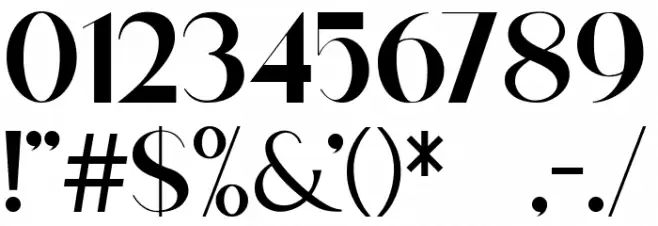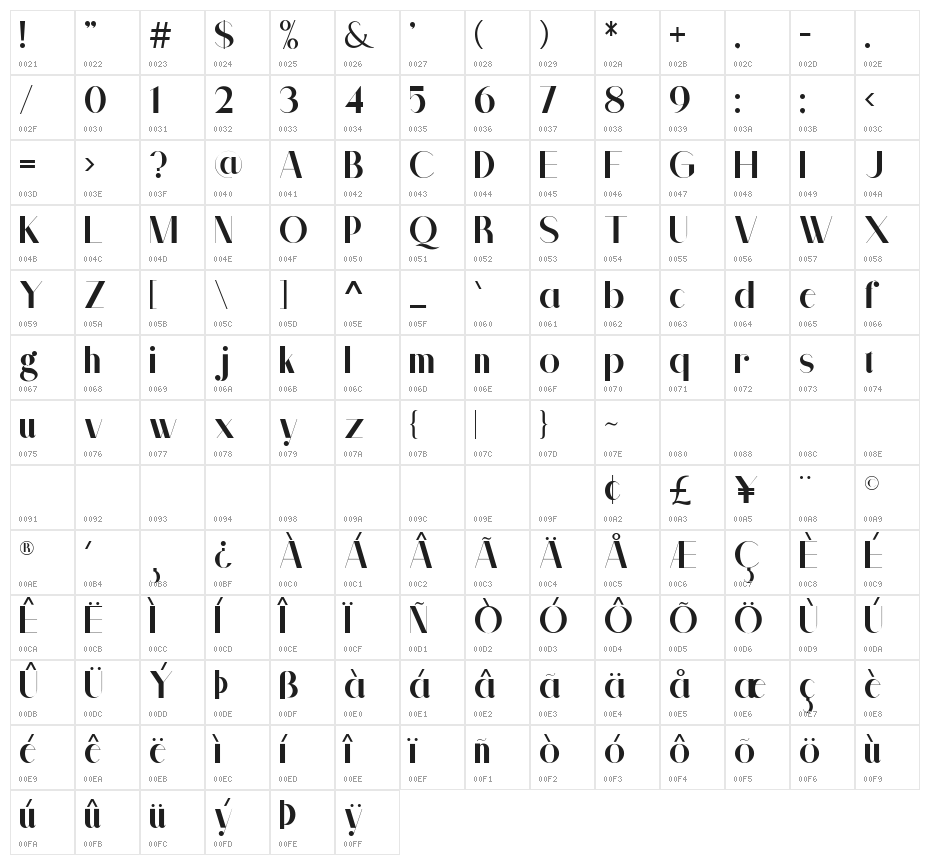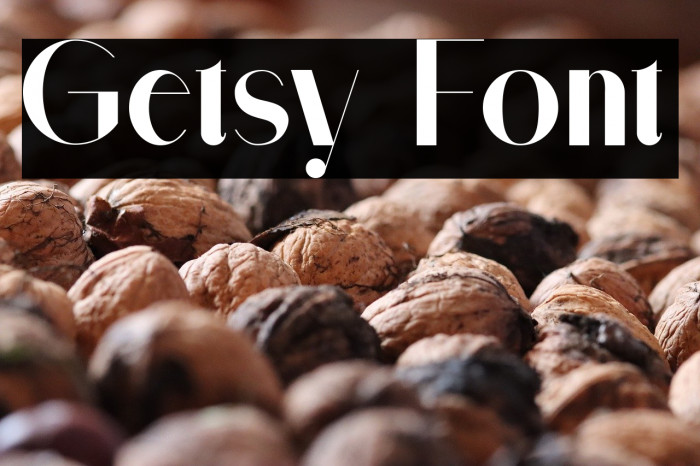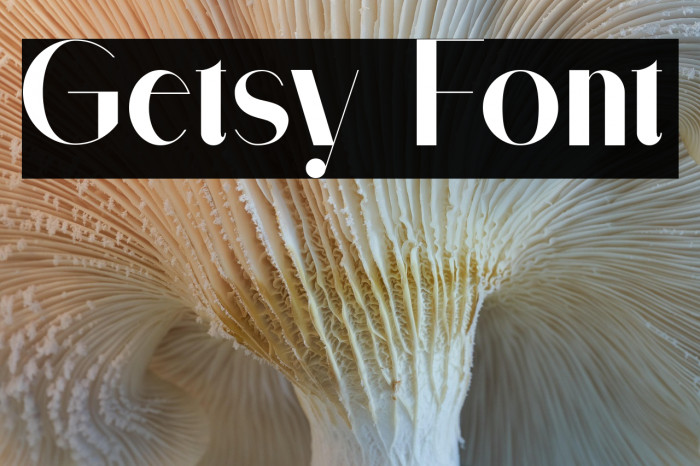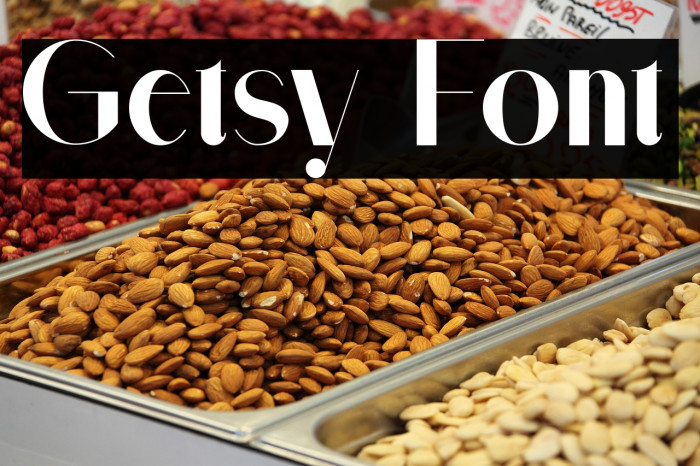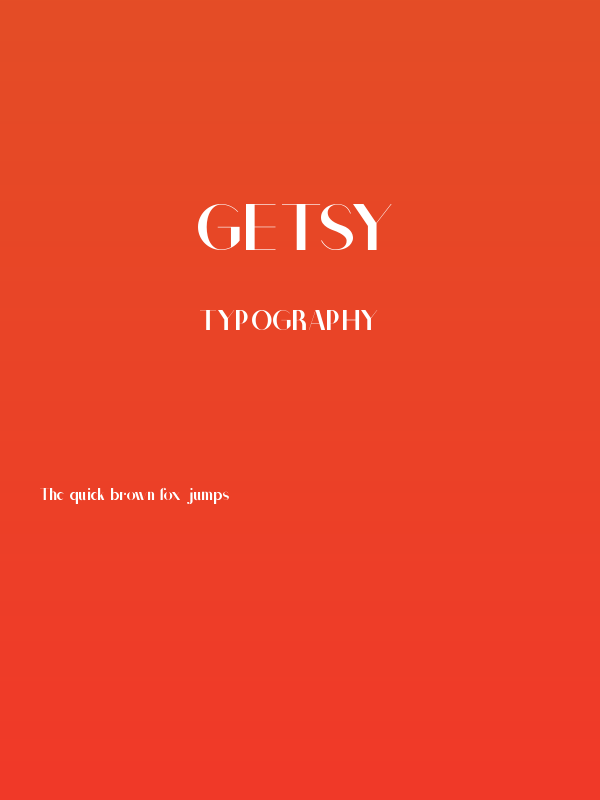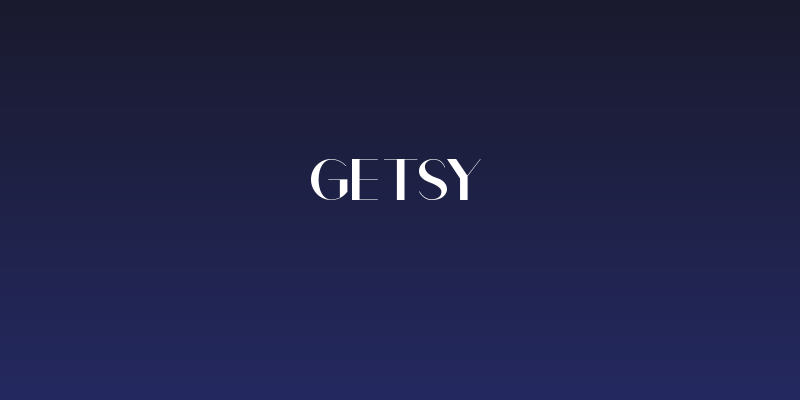
Getsy Font
Getsy Description
This font features a striking blend of modern and classic elements, characterized by its high contrast between thick and thin strokes. The uppercase letters are bold and commanding, while the lowercase letters maintain a more fluid and elegant appearance. The numerals are distinct and easy to read, with a consistent style that complements the alphabet. Special characters are designed with the same attention to detail, ensuring a cohesive look across all glyphs. The overall design is both sophisticated and versatile, making it suitable for a wide range of applications.